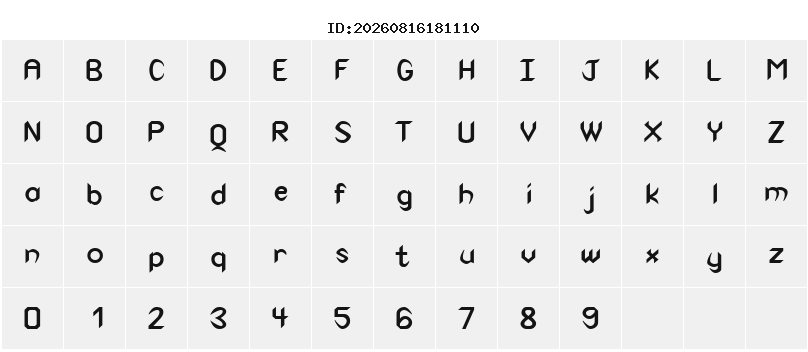
About Spike-Condensed.ttf
Spike-Condensed.ttf is a modern, elegant sans-serif font designed for ultimate readability and visual harmony. Perfect for branding, headlines, web design, and print materials.